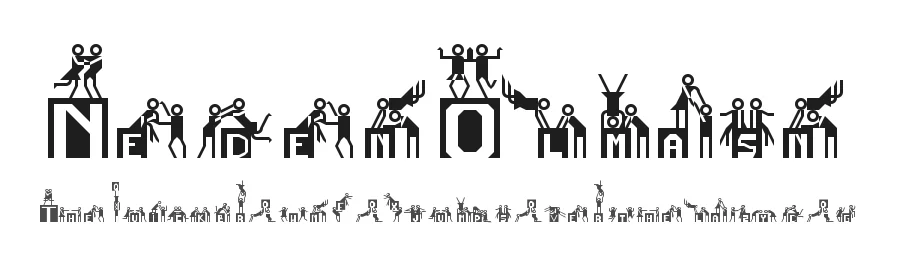
About Firestarter Font
Firestarter is a decorative font designed by Pizzadude. It includes 96 glyphs, a regular weight, TTF (TrueType) format, and 104 languages. Firestarter is free to download; check the license details on this page before commercial use. Decorative fonts like Firestarter work best for logos, posters, packaging, and standout headlines.
Firestarter Font is a decorative font that shines as a display or heading face. Pair it with a clean sans-serif or serif font for body text β the contrast creates a clear hierarchy while the two styles stay balanced and easy to read.
Firestarter Font
by Pizzadude
Firestarter Font is a decorative typeface by Pizzadude, ideal for logos, invitations, branding, and creative projects.